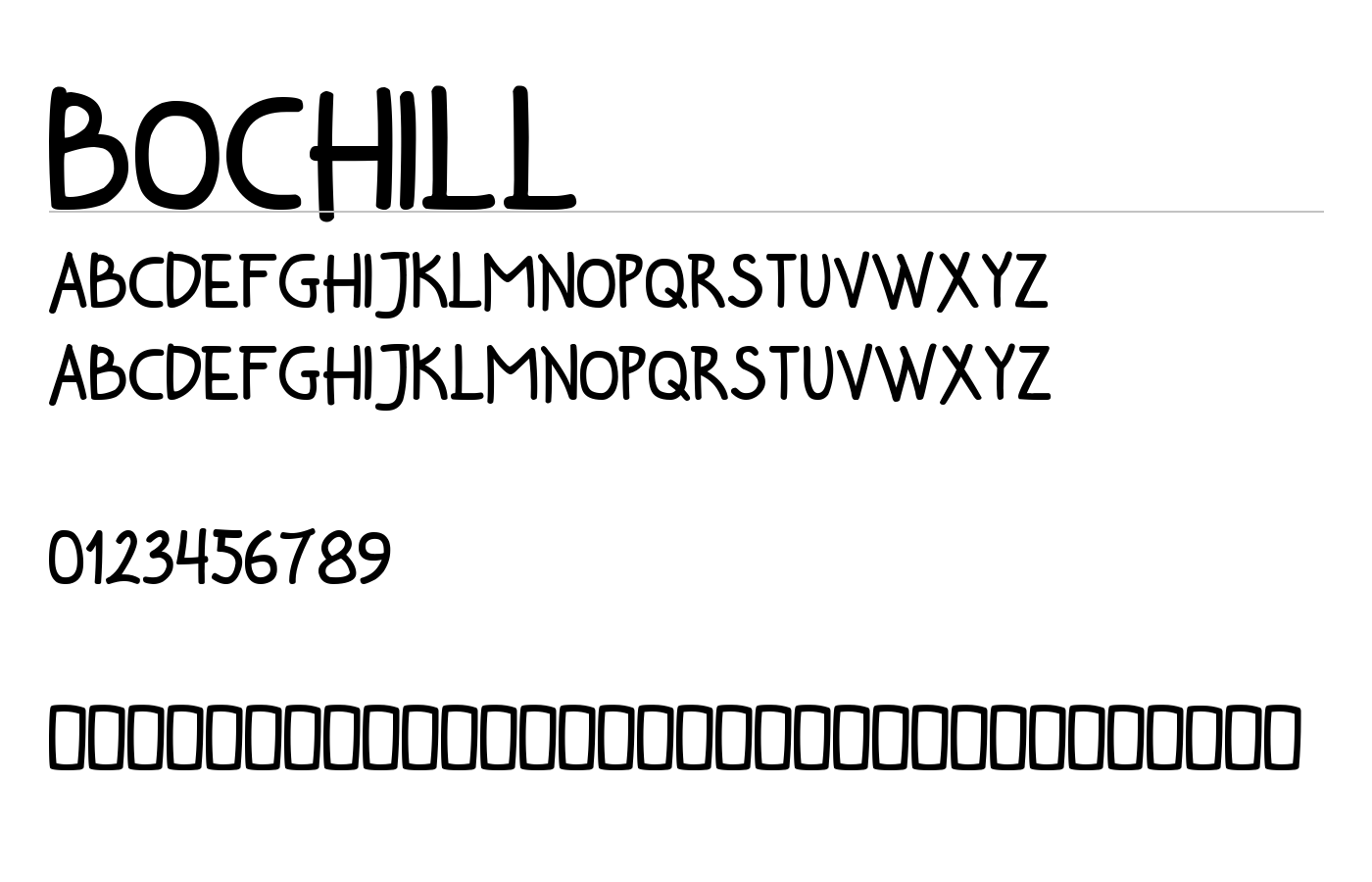
Bochill is a casual, hand-drawn sans serif font with a playful and friendly appearance, characterized by its irregular, rounded strokes and tall, narrow letterforms. Its upright, monoline style with consistent stroke weight makes it ideal for informal, creative projects like children's books, logos, and posters where a warm, approachable vibe is desired. This font works best in headlines and display text, bringing a fun and personal touch to any design.
Bochill Font
About Bochill Font